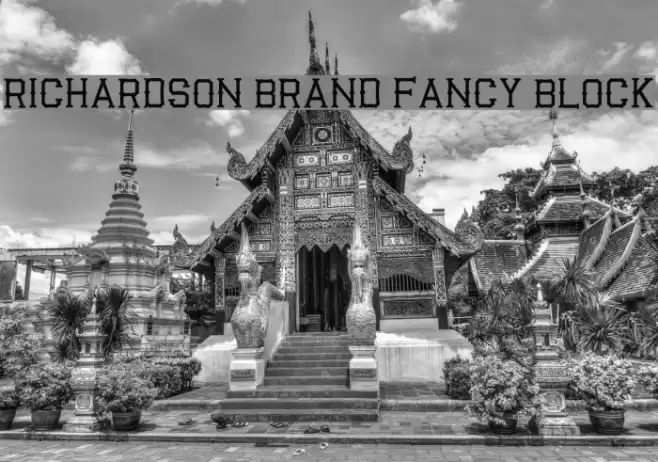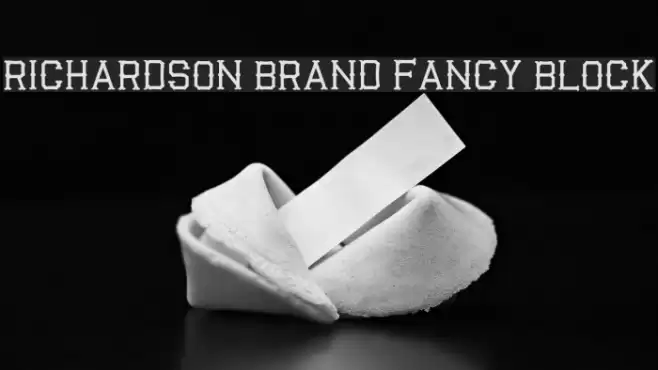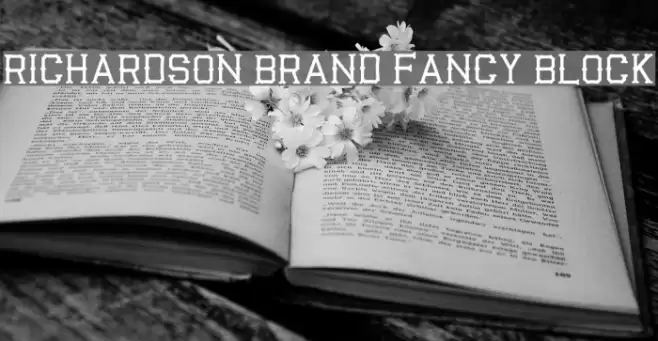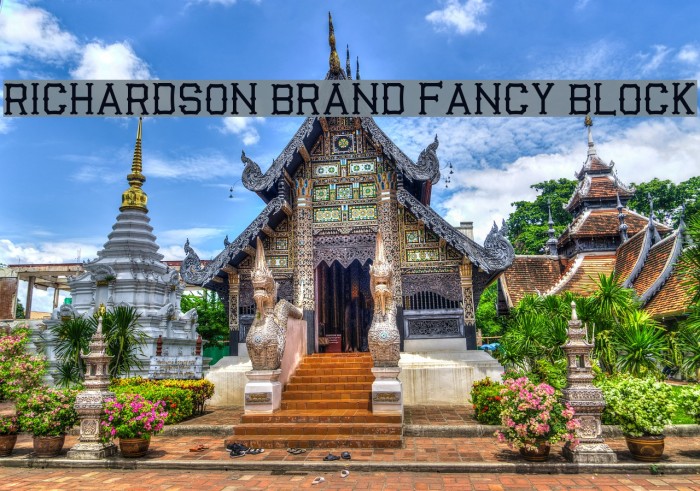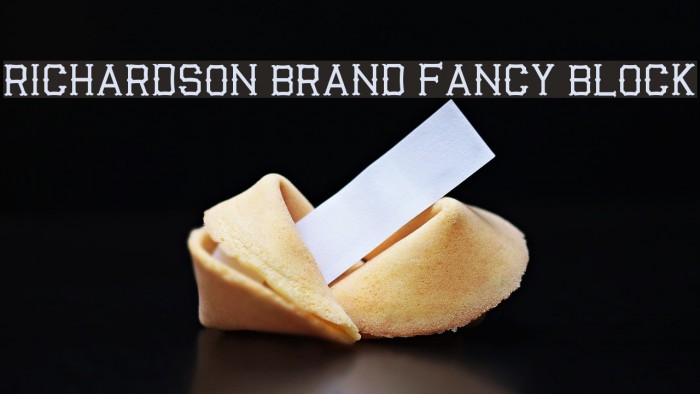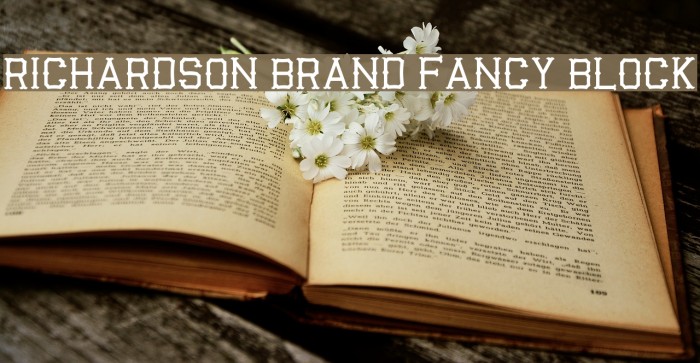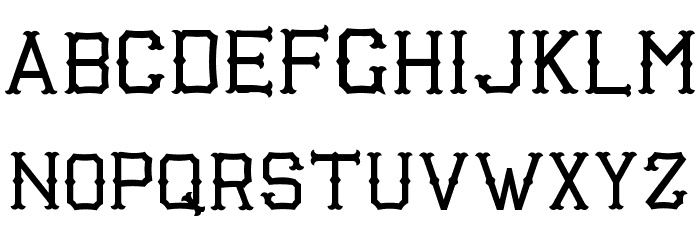
Richardson Brand Fancy Block Font
Richardson Brand Fancy Block Description
This font features a bold and decorative style with a unique blocky structure. Each letter is adorned with intricate, pointed serifs that give it a distinct, almost medieval appearance. The characters are evenly spaced, providing a balanced and uniform look across the text. The font's design is reminiscent of vintage signage or old-world craftsmanship, making it ideal for projects that require a touch of historical elegance. Its boldness ensures that it stands out, making it suitable for headlines or titles where emphasis is needed.
A bold, decorative font with intricate serifs and a vintage, medieval style from Uncategorized fonts.
- Proposed Projects: Ideal for vintage-themed posters, historical event invitations, or branding that requires a classic touch.
- Overall Style: Vintage